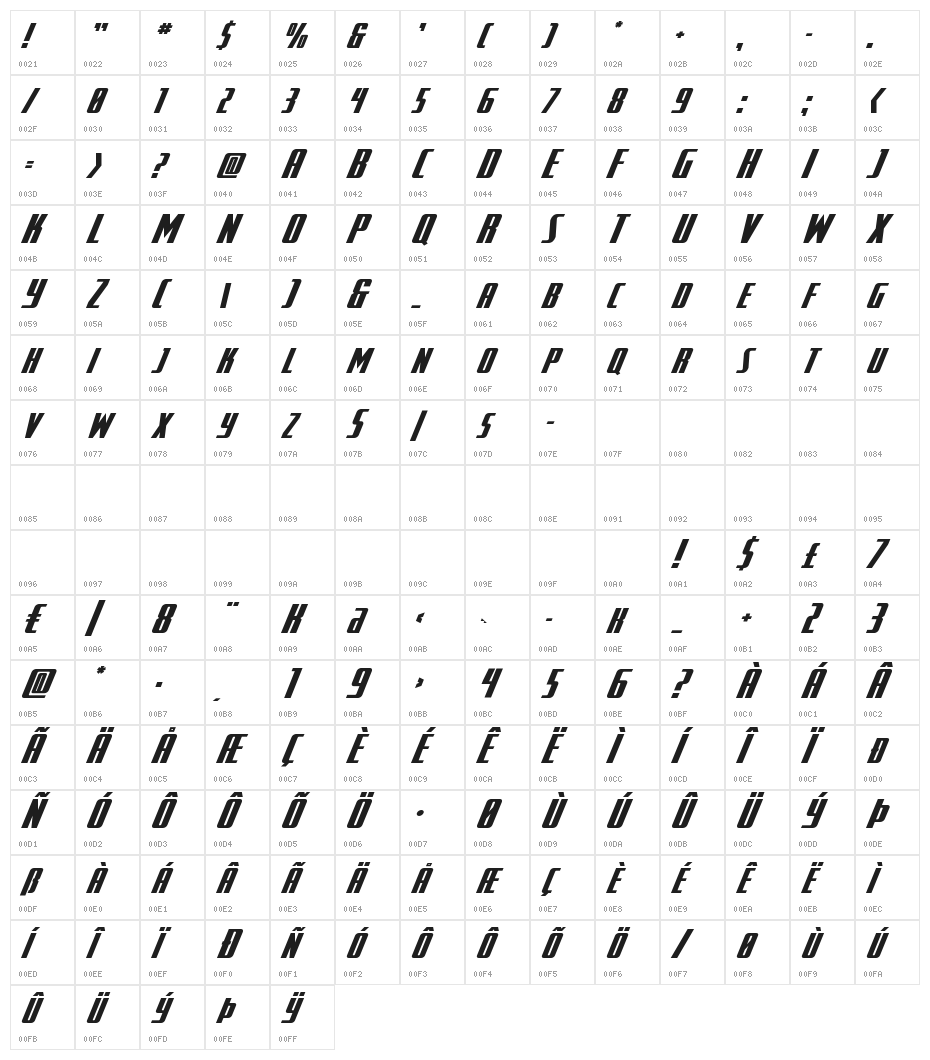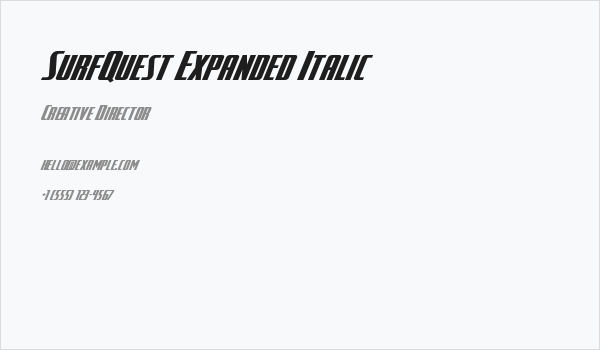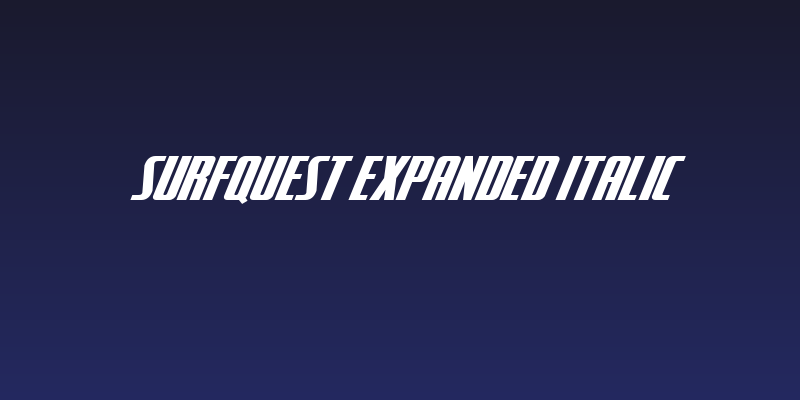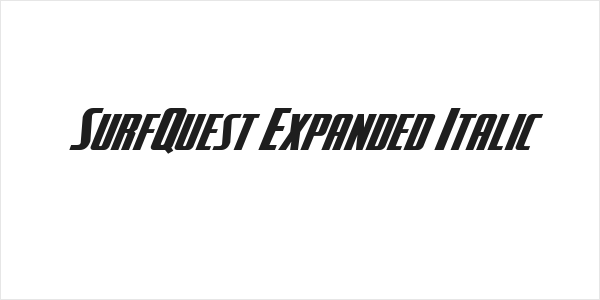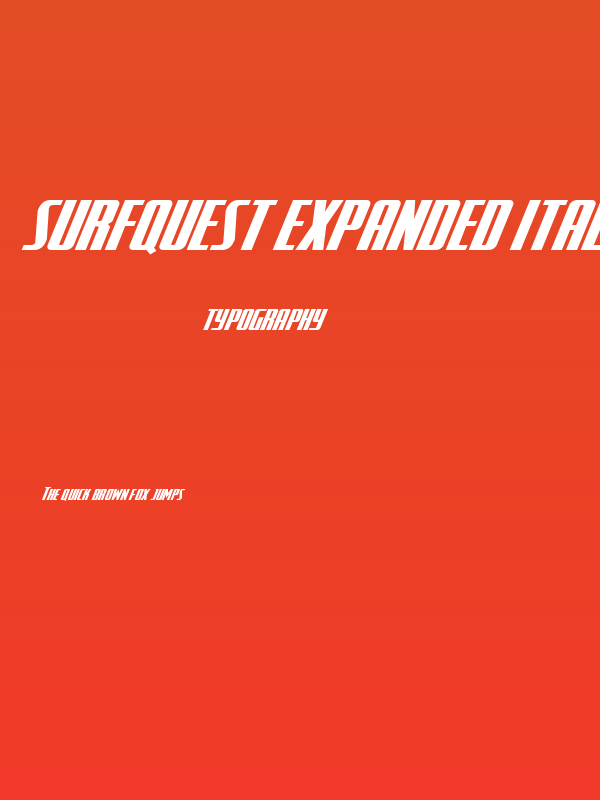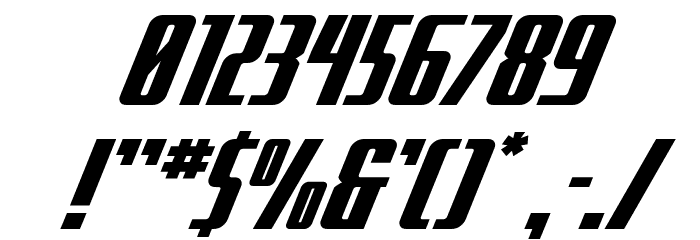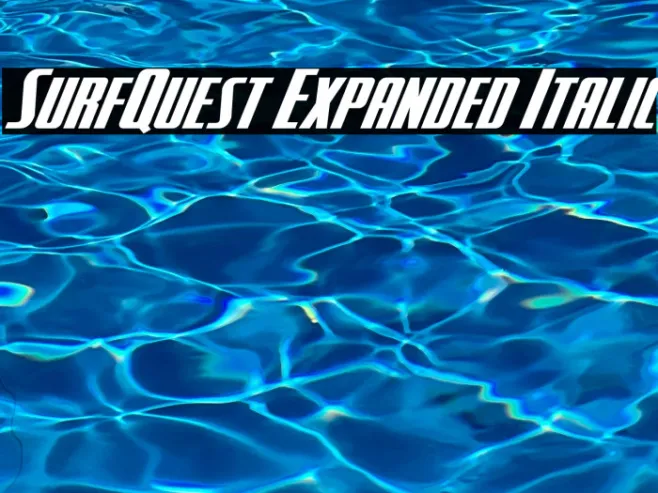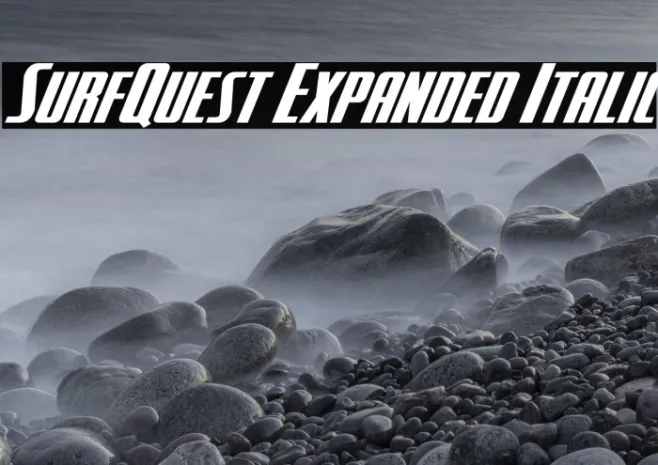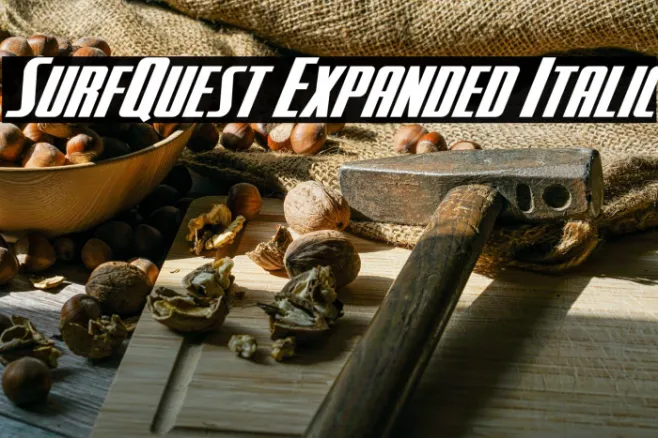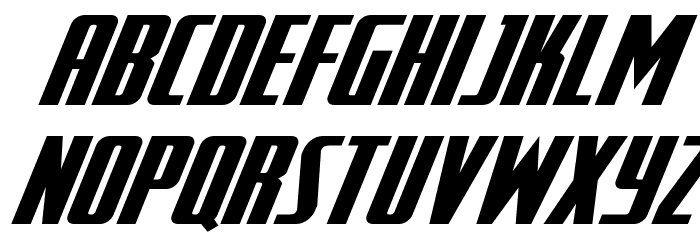
SurfQuest Expanded Italic Font
SurfQuest Expanded Italic Description
This font features a bold and dynamic style with an italic slant, giving it a sense of motion and energy. The characters are expanded, providing a wide and impactful appearance. The strokes are thick and consistent, contributing to a strong visual presence. The design is modern and sleek, making it suitable for attention-grabbing headlines or branding materials. The uppercase and lowercase letters maintain a cohesive look, while the numbers and special characters are designed to match the overall aesthetic.
| Proposed Projects | Ideal for sports branding, dynamic posters, and modern advertising campaigns. |